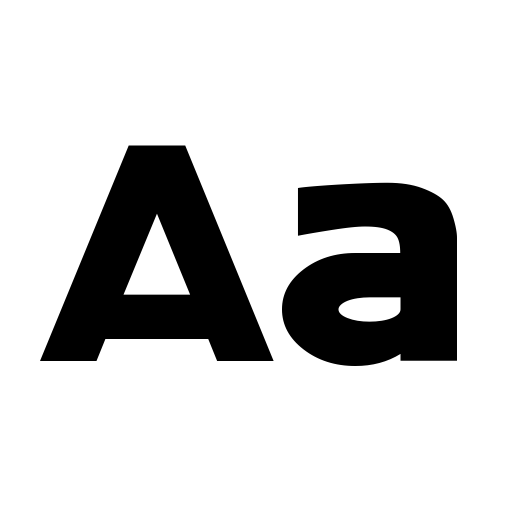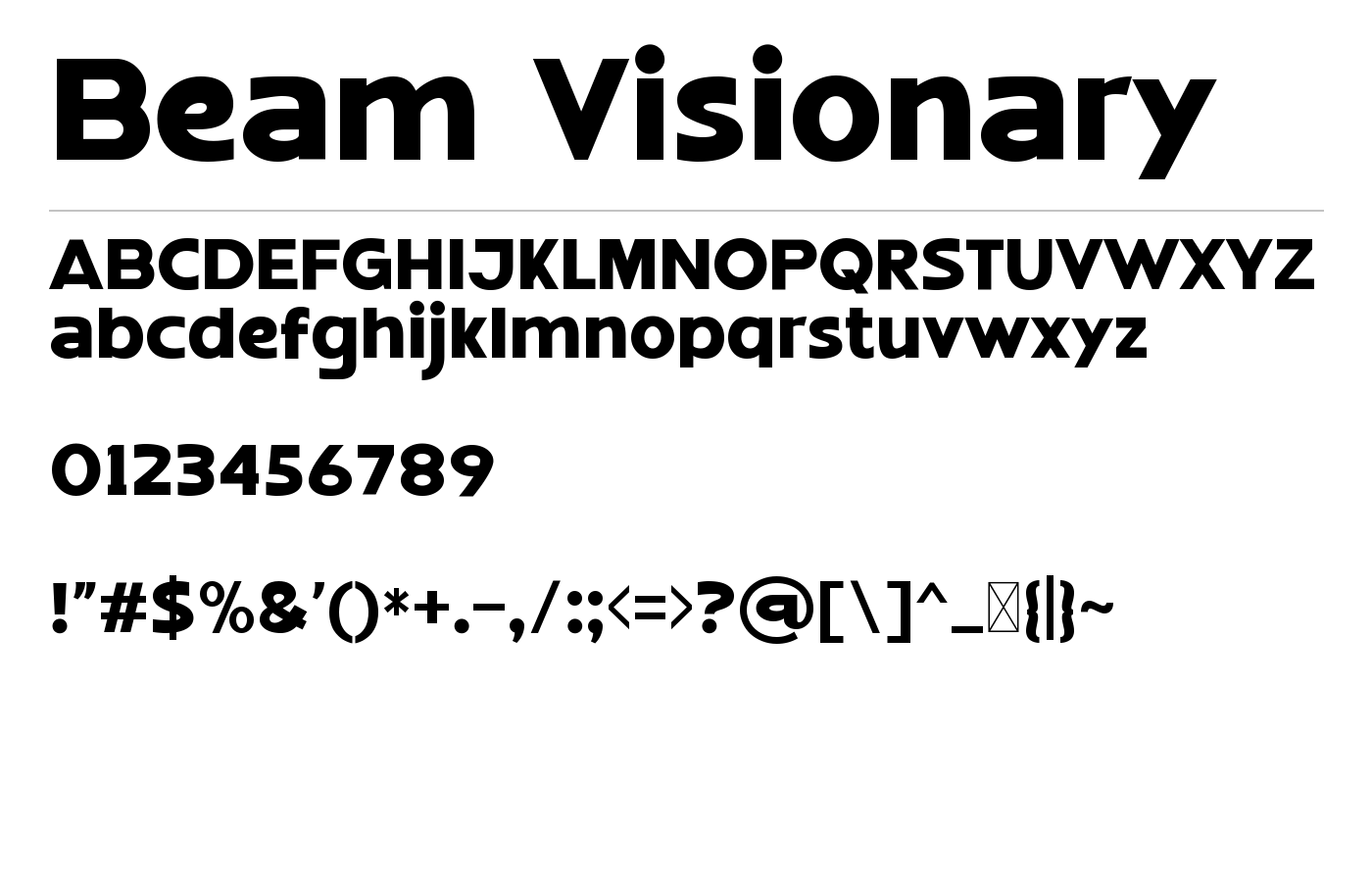
Beam Visionary is a bold, geometric sans serif font with a strong, modern presence. Its clean, wide letterforms and high x-height make it highly readable and impactful, perfect for headlines, branding, and editorial use where clarity and confidence are key. This font conveys a contemporary, professional feel that suits tech, creative, and corporate designs.